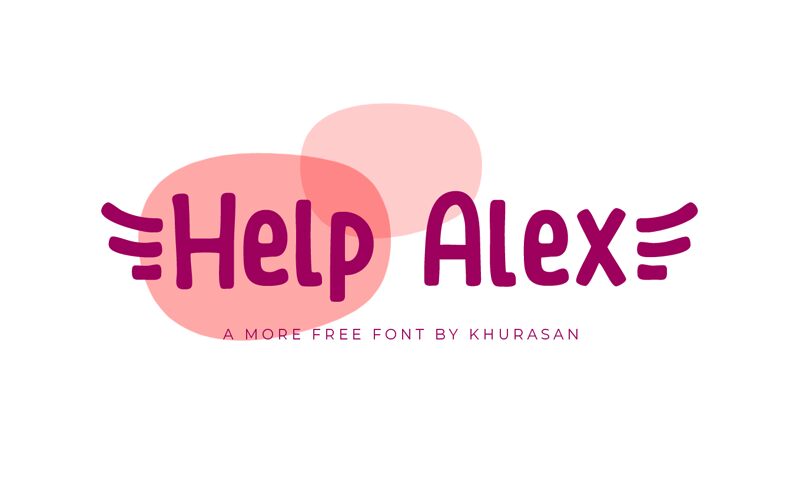
Help Alex
The Help Alex font, designed by Khurasan, is a playful and vibrant display typeface that adds a touch of whimsy to any project. With its cartoon-inspired style, this font is perfect for children's books, animated movie posters, video game titles, and comic book covers. Its bold and energetic nature brings characters to life while maintaining readability. Whether you're designing a website for a kids' entertainment company or creating promotional materials for a family-friendly event, Help Alex is the ideal choice to infuse your project with creativity and fun.